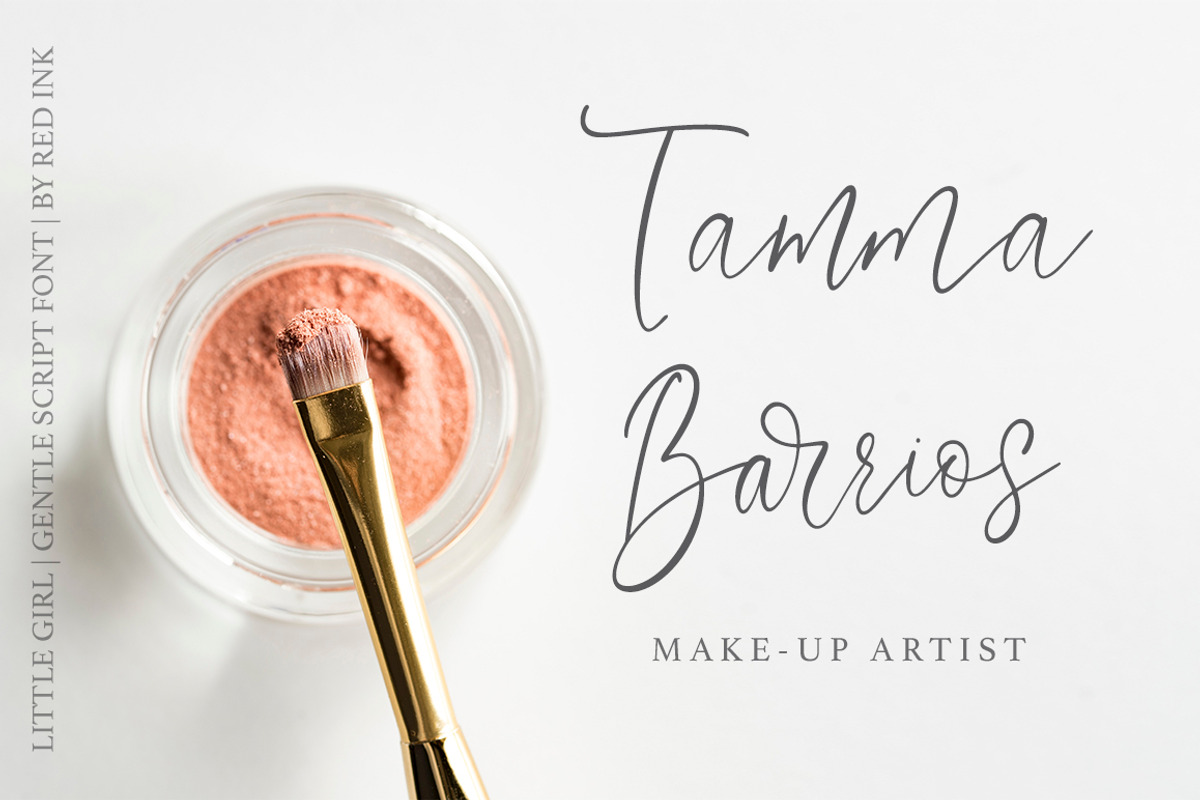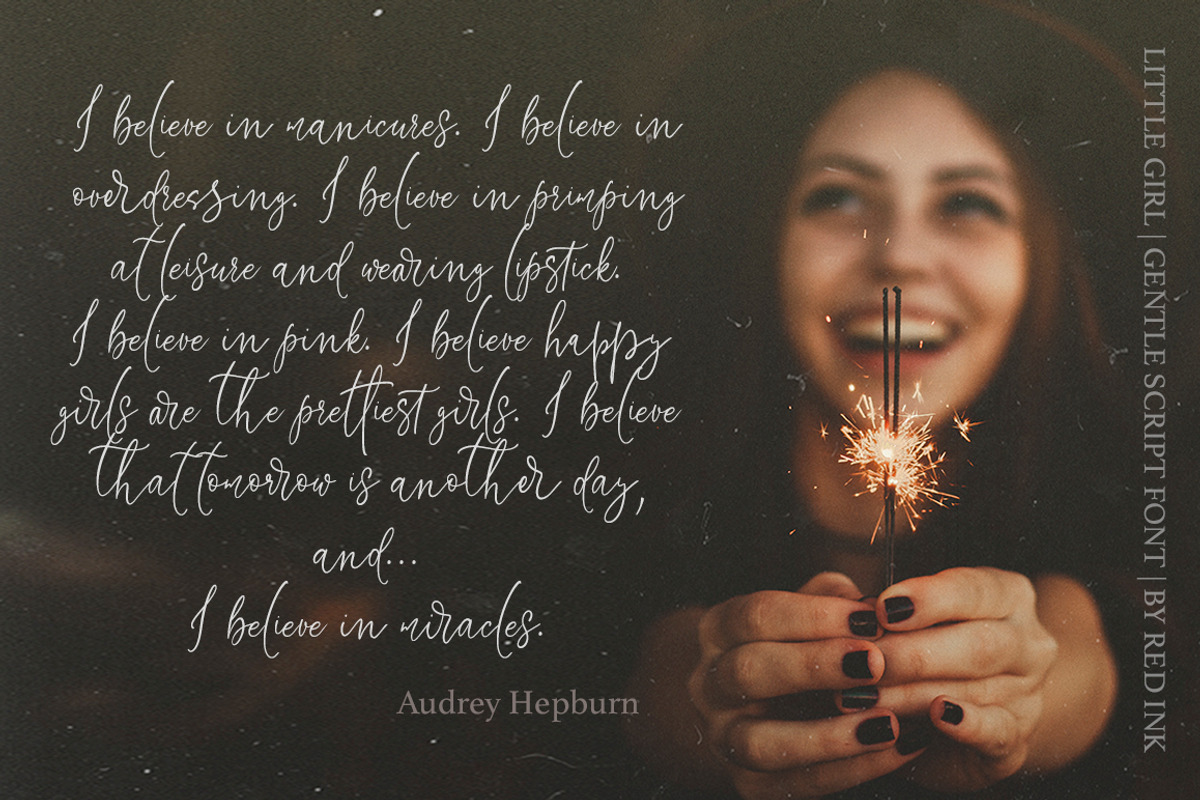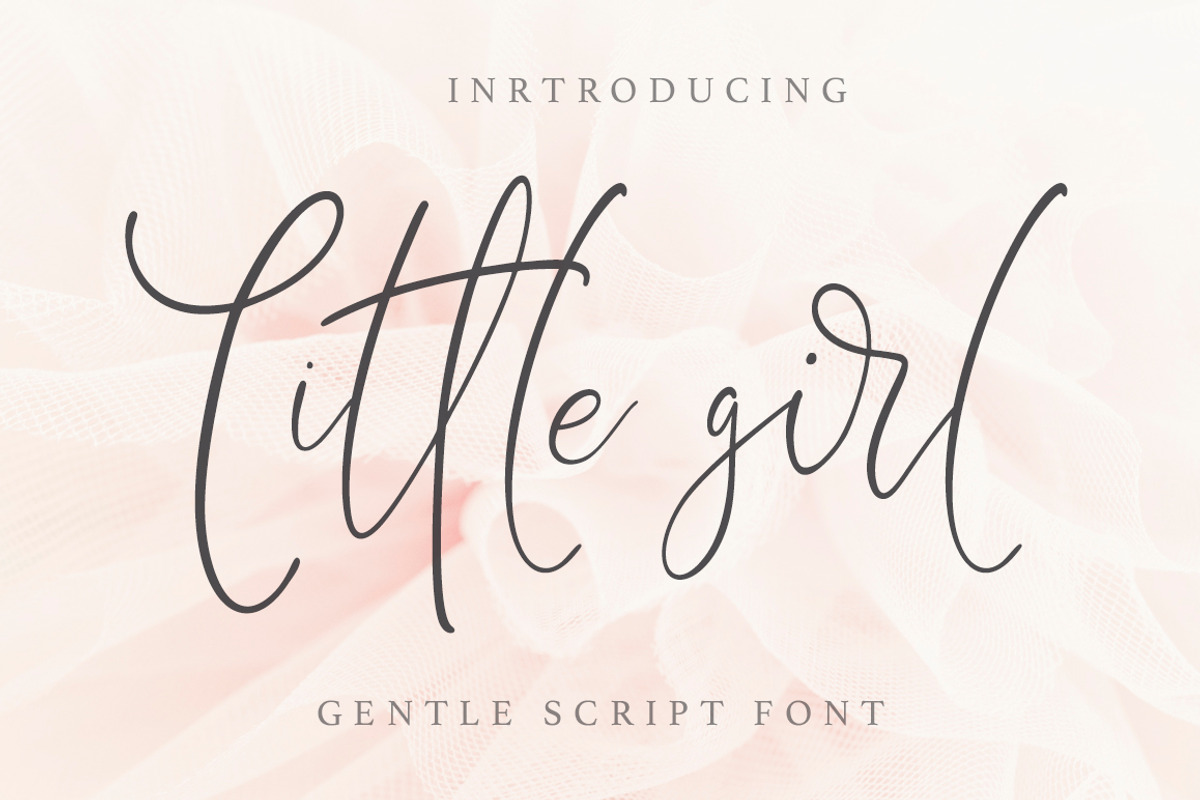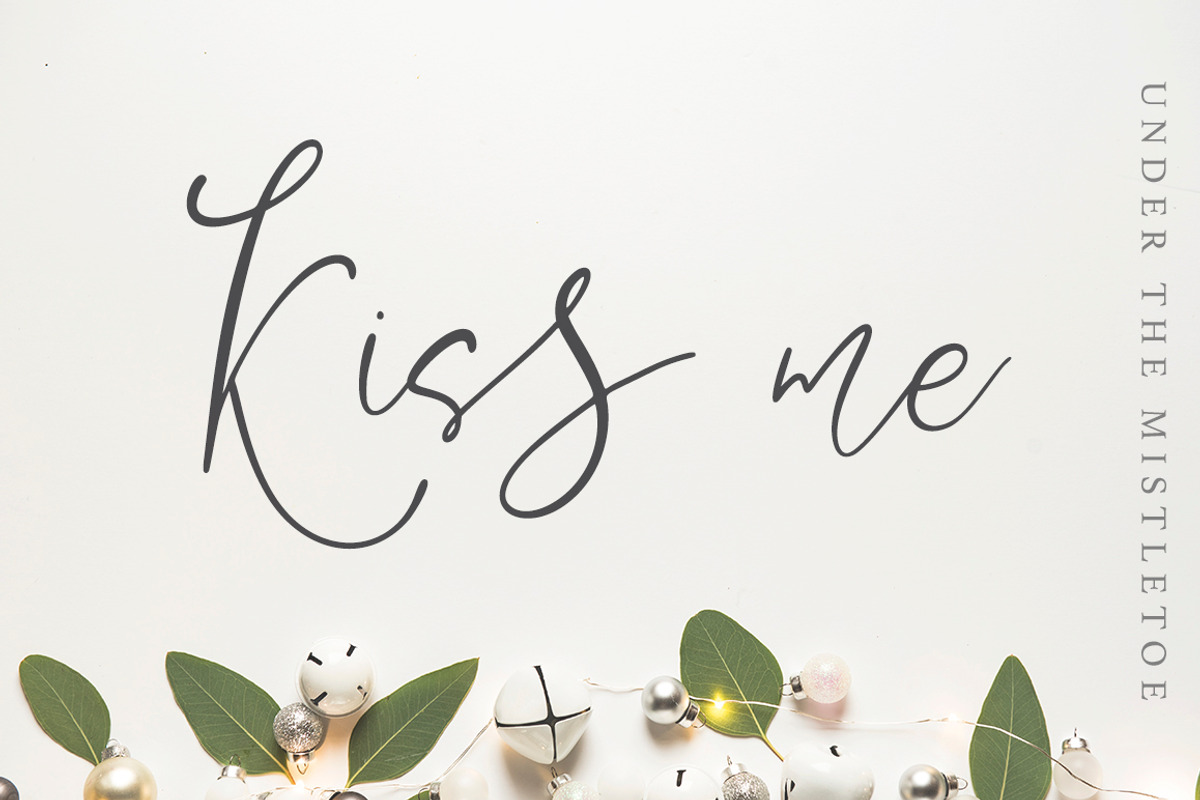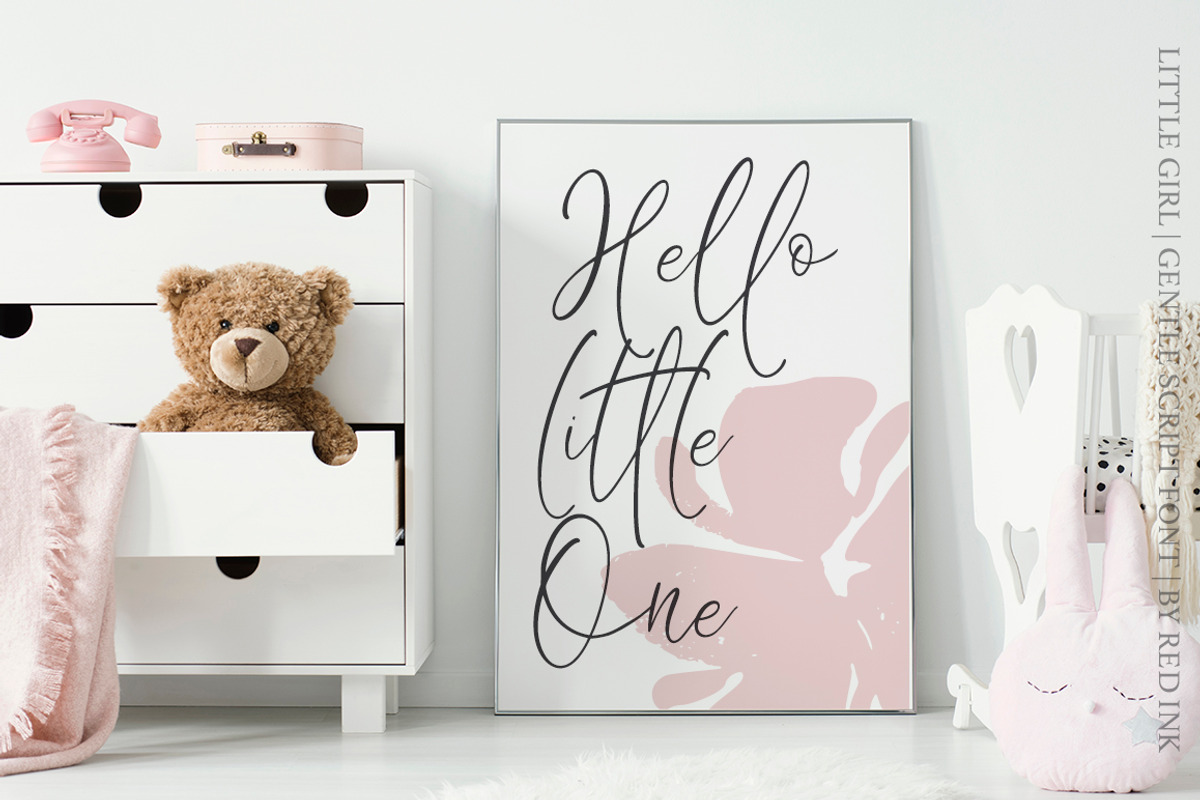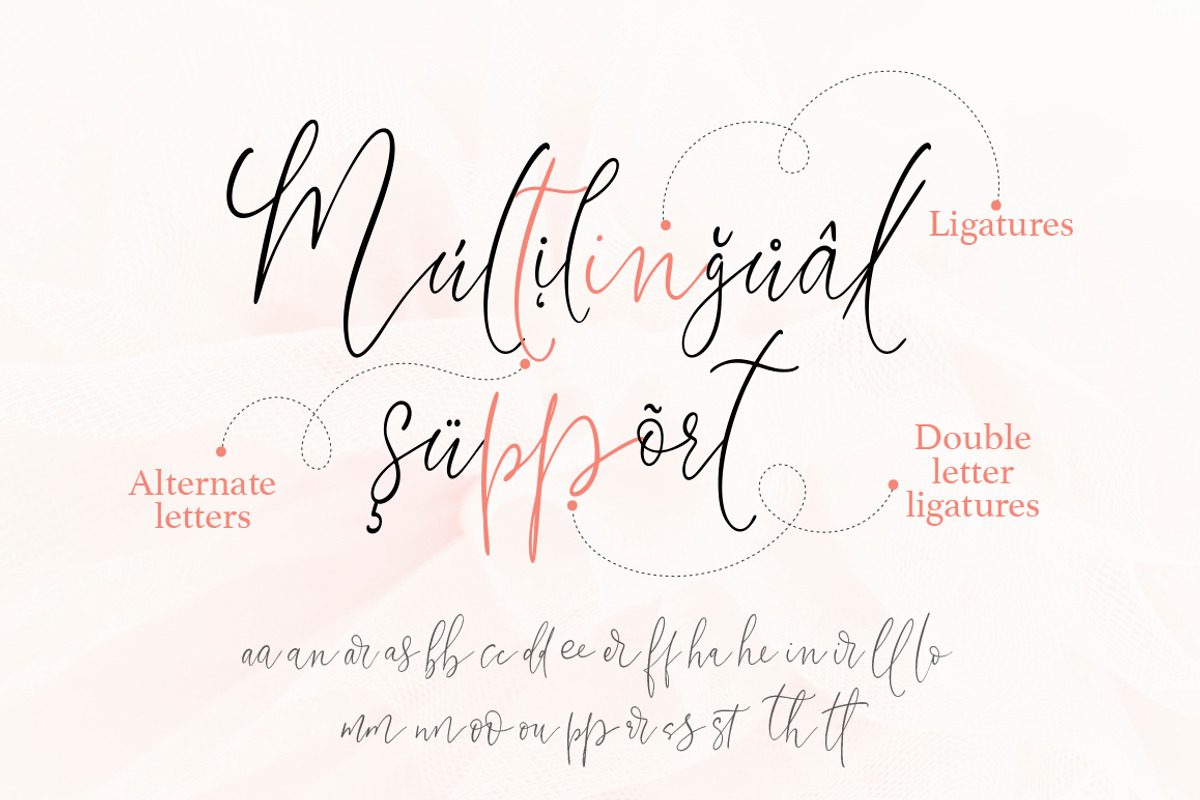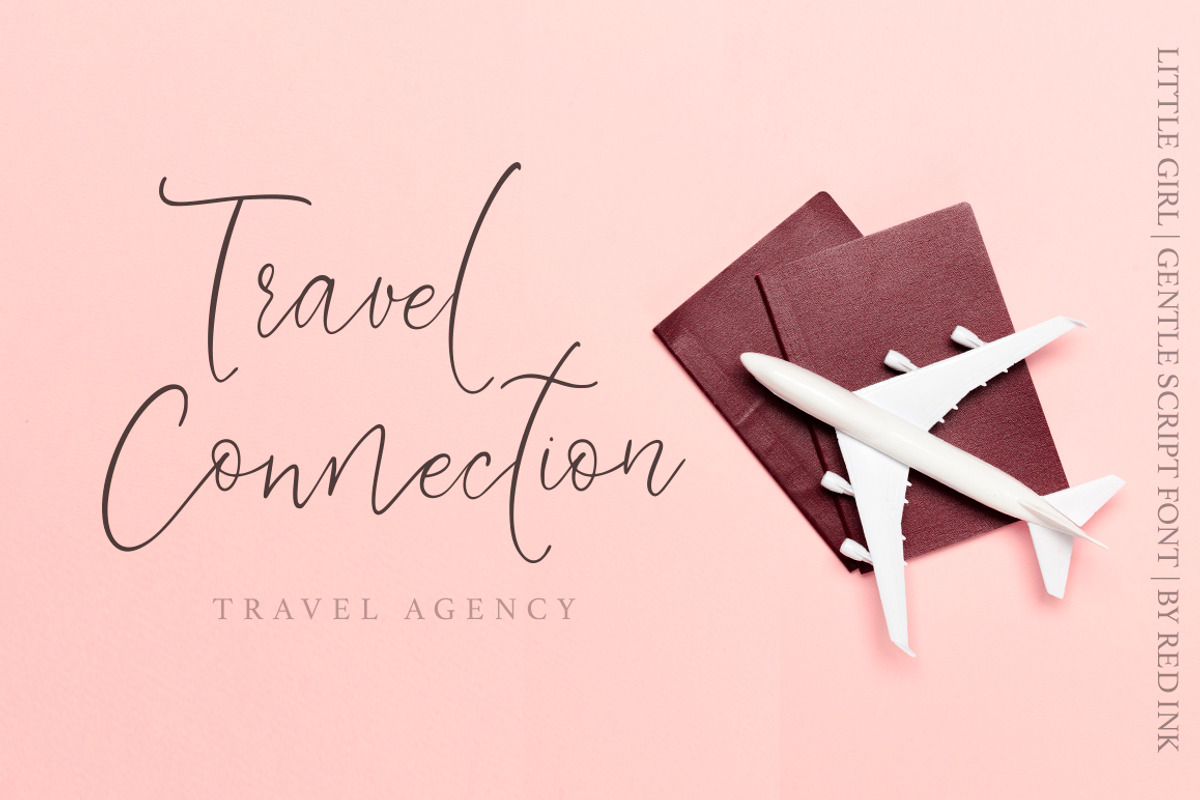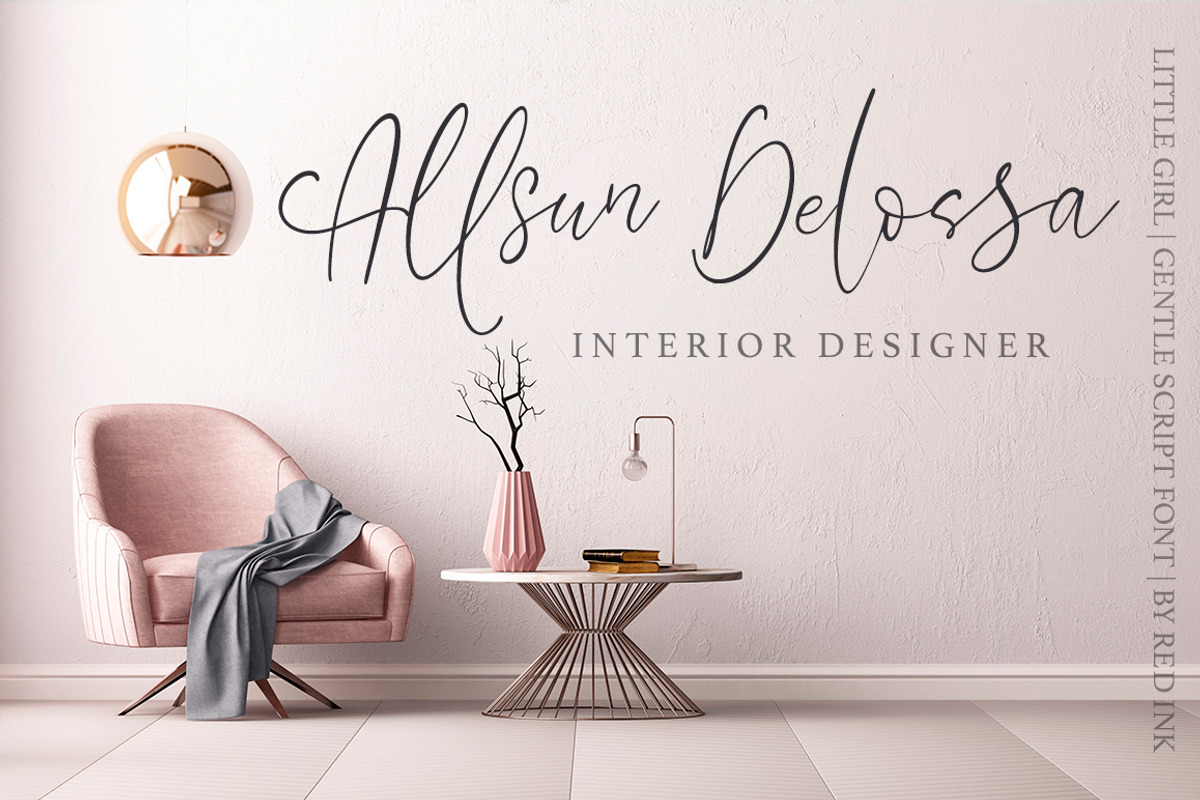
Little Girl. Gentle Script Font.
«Little Girl» is a beautiful script SIGNATURE font with an unique bouncy character.It is perfect for blogging, social media, branding, wedding invites and cards.
«Little Girl» includes full set of gorgeous uppercase and lowercase letters, numerals, a large range of punctuation, lowercase alternate letters, 26 ligatures. It’s all giving realistic hand-lettered style.